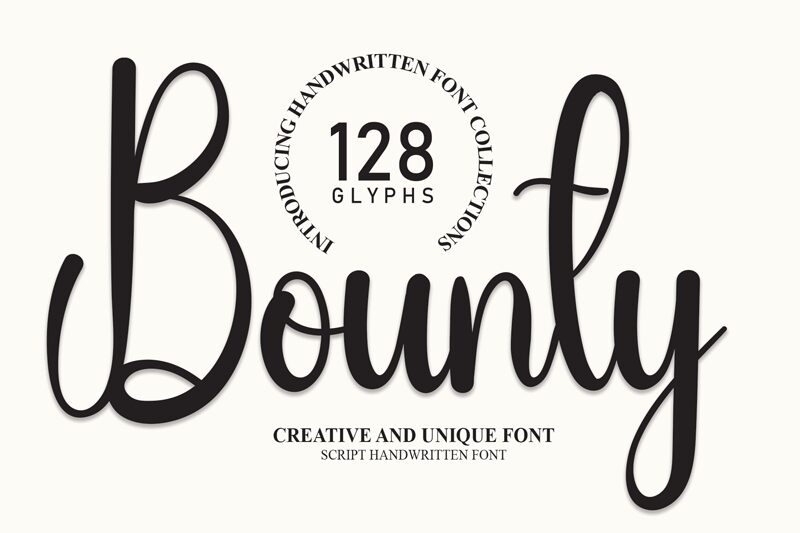
Bounty
Bounty, a creation of Scratchones, offers a fresh take on the handwritten font style. Its semi-light weight and semi-condensed width combine to form an elegantly understated aesthetic. The fluidity of Bounty's characters suggests a personal touch, reminiscent of classic cursive penmanship, yet it maintains a modern crispness that ensures legibility.
The versatility of Bounty lies in its balance between casual charm and stylish sophistication. This makes it an excellent choice for branding projects, invitations, and any design work where a hint of individuality is desired. Its subtle playfulness can enhance the visual narrative without overpowering the message-a testament to its well-crafted design by Scratchones. Whether for digital media or print, Bounty adds a personal yet polished vibe to creative endeavors.